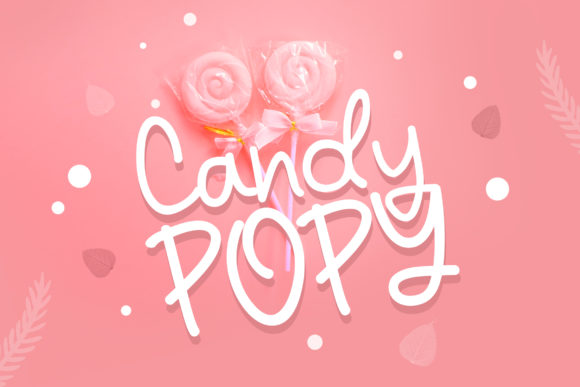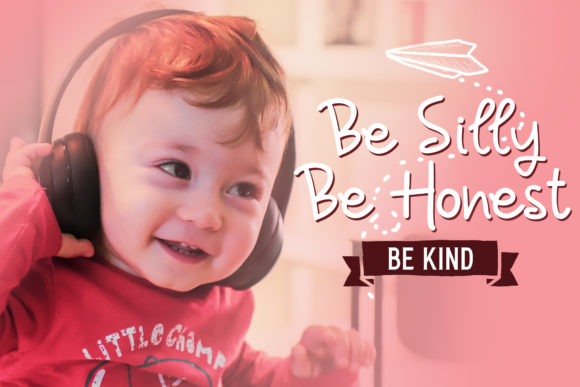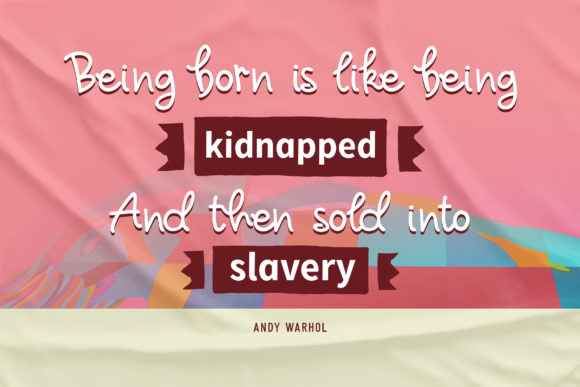
Introduction to Sheyna Baby Font
As a designer, have you ever been stuck on a creative project, struggling to find the perfect font to bring your vision to life? You scroll through your design resources, searching for something that captures the essence of your idea, only to be left disappointed by the lack of options. But what if I told you that there’s a font that can make all the difference?
Enter the Sheyna Baby Font, a delightful and charming script that radiates life and adds a unique touch to any design. This authentic font is not just a pretty face; it’s a high-quality design resource that’s free to download and use in your next project. With its transparent background, you can easily incorporate it into your design without any hassle.
Whether you’re working on a children’s book, a greeting card, or a digital illustration, the Sheyna Baby Font is an invaluable asset to have in your design toolkit. Its cute and playful nature makes it an instant hit with designers looking to add a personal touch to their creative projects. So why wait? Download the Sheyna Baby Font today and unlock a world of creative possibilities!
Key Features of Sheyna Baby Font
- High-quality, cursive font perfect for creative projects requiring a soft, playful touch.
- Sheyna Baby Font is an ideal choice for designers working on baby-related projects, such as nursery decor, baby clothing, or children’s book illustrations.
- Unique, hand-drawn design elements add a personal touch to any creative project, making it stand out from other fonts.
Honest Review: Sheyna Baby Font
I recently had the chance to work with the Sheyna Baby Font, and I must say it’s been a delightful experience. This font is perfect for any creative project that requires a touch of whimsy and charm. One of the things that stood out to me was the transparent background, which made it incredibly easy to incorporate into my designs.
Here are some things that work well with the Sheyna Baby Font:
- ✨ High-quality design that’s perfect for a wide range of creative projects
- ✨ Unique and playful style that’s sure to add some personality to your work
- ✨ Easy to use and customize, even for designers with limited experience
One limitation I did encounter was the lack of bold font options, which made it a bit difficult to use for headings and titles. However, this wasn’t a major issue and didn’t detract from my overall experience with the font.
Overall, I’m really impressed with the Sheyna Baby Font and would definitely recommend it to designers looking for a high-quality, free design resource for their creative projects.
Tips for Getting the Most Out of Sheyna Baby Font
When using the Sheyna Baby Font, be sure to take advantage of its transparent background feature, which allows for seamless integration with images and other design elements. You can also use the font to create high-quality designs for your creative project, such as invitations, posters, and social media graphics.
The Sheyna Baby Font is ideal for use in baby-themed designs, such as nursery decor, baby shower invitations, and children’s clothing. Its high-quality design and transparent background make it a versatile design resource for a variety of creative projects.